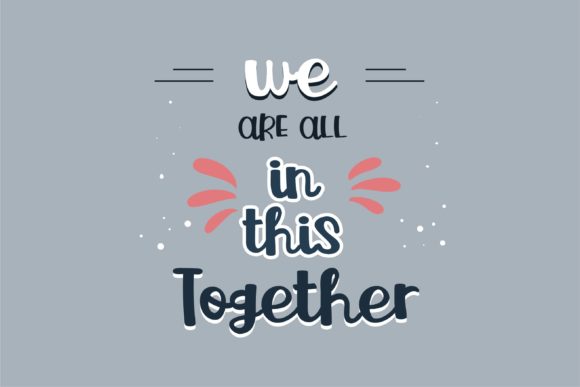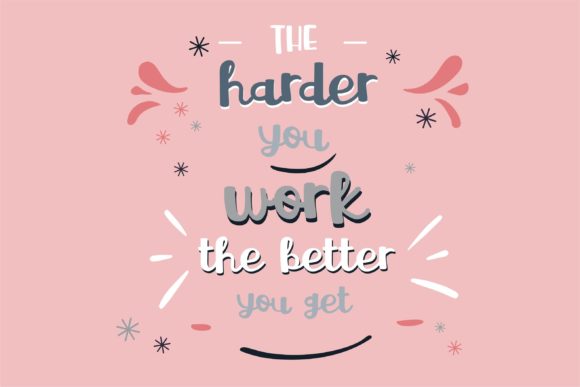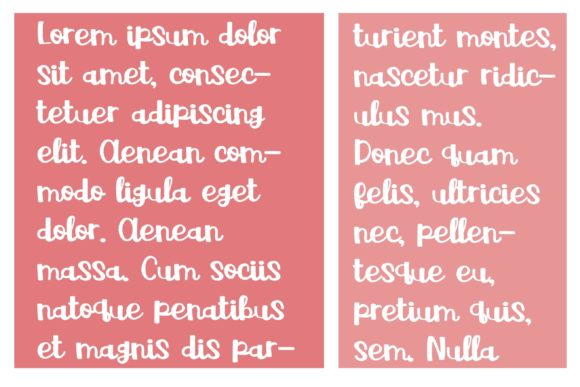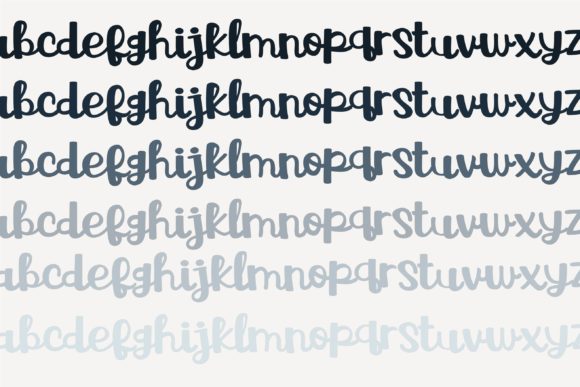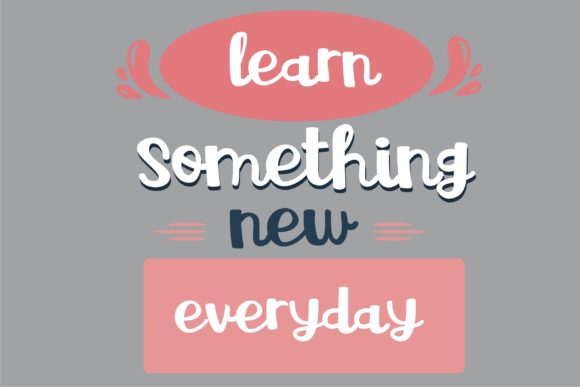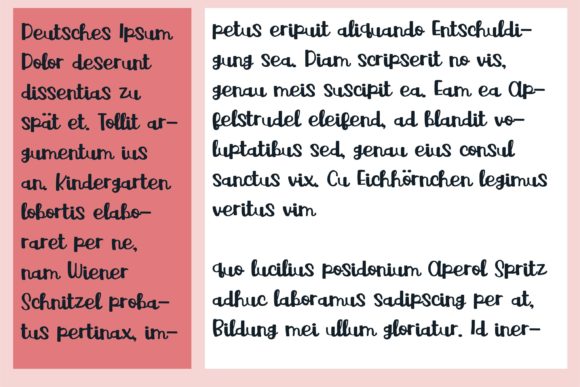
Overthink Font
About Overthink Font
Overthink is a whimsical and chic handwritten font that exudes a playful yet stylish vibe. This versatile typeface is an excellent choice for a variety of applications, making it perfect for product packaging, branding projects, magazine covers, social media graphics, weddings, or whenever you want to convey words with a touch of whimsy and elegance against the background.
The whimsical charm of Overthink adds a delightful and lighthearted quality to product packaging, allowing text to become an integral part of the design. The font’s handwritten style contributes to a personalized and creative touch, enhancing the overall aesthetic.
In branding projects, Overthink brings a chic and playful element to logos and visual elements. The font’s whimsical nature adds character, making it suitable for a range of industries that seek a balance between creativity and sophistication.
Magazine covers benefit from the chic and handwritten design of Overthink, providing an eye-catching and stylish option for headlines and featured text. The font’s versatility allows it to complement various design themes, adding a touch of personality to the overall layout.
For social media graphics, Overthink offers a whimsical and chic look that stands out on various platforms. Whether used for quotes, announcements, or promotional content, the font ensures a lively and fashionable presentation.
In wedding-related materials, Overthink’s whimsical and chic style adds a playful elegance to invitations, save-the-date cards, or social media posts related to the event. Its handwritten charm provides a sense of warmth and personality while maintaining a fashionable appearance.
In summary, Overthink is a whimsical and chic handwritten font that brings a playful sophistication to a range of design projects. Whether applied to product packaging, branding projects, magazine covers, social media, weddings, or other contexts, this font adds a touch of whimsy and elegance to express words above the background.